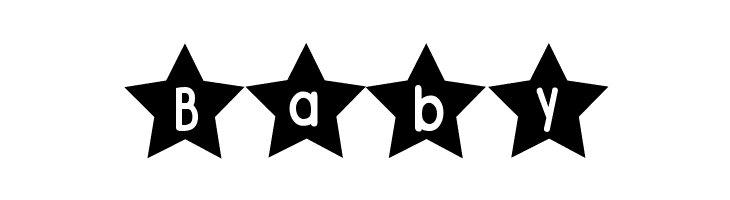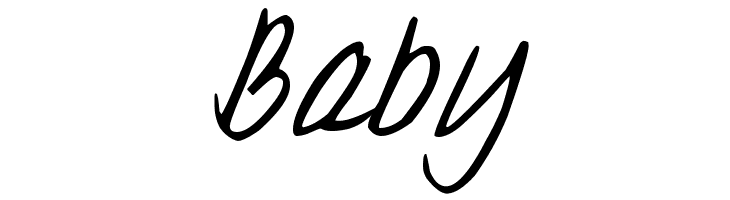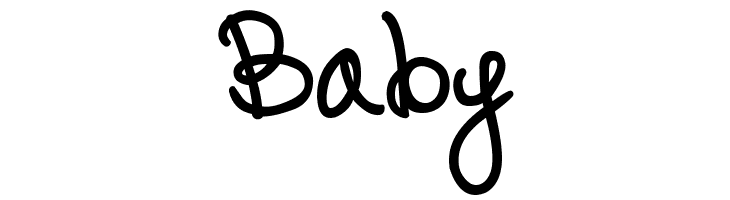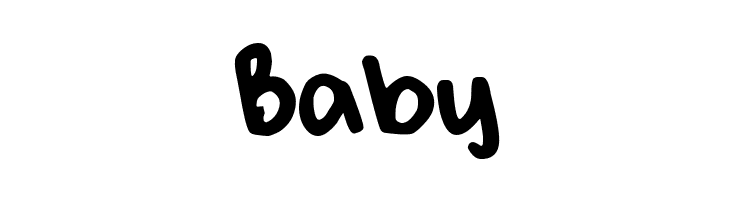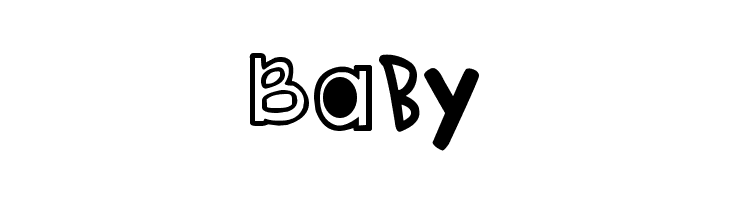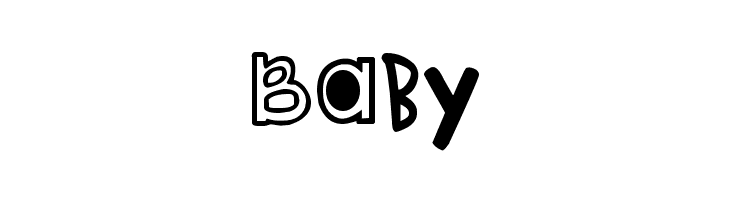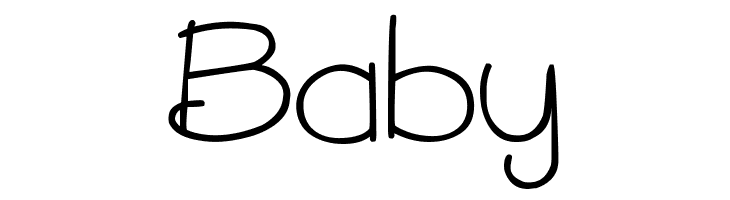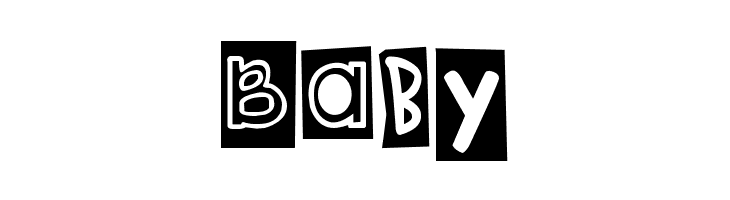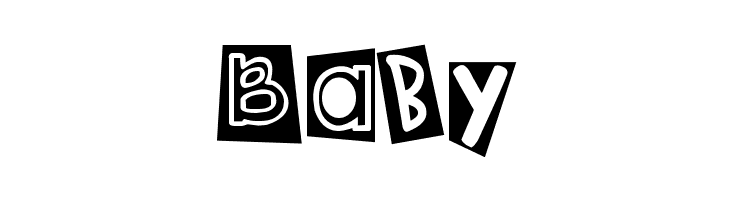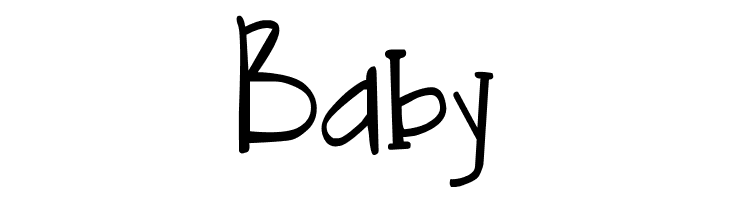
A playful, bold font with rounded, thick strokes and a whimsical touch.
A playful font with characters enclosed in bold circular dots, offering a whimsical and creative style.
A playful font styled like letter tiles from a word game, featuring bold characters within bordered squares.
A playful, tile-based font inspired by classic word games.
A playful, game-inspired font with characters on square tiles.
A playful font with characters enclosed in pumpkin shapes, perfect for seasonal themes.
A playful, pumpkin-themed decorative font ideal for festive designs.
A playful, bold handwritten font with a casual and creative vibe.
A bold, playful handwritten font with a casual and dynamic style.
An elegant and decorative font with intricate swirls and loops.
A clean, modern font with rounded edges and uniform stroke width.
A playful handwritten font with a whimsical and informal style.
A playful, hand-drawn font with a whimsical and friendly style.
A playful, hand-drawn font with tall, narrow letters and whimsical strokes.
A playful handwritten font with smooth, rounded letterforms and a whimsical style.
A playful, bold font with characters enclosed in black circles, offering a unique and decorative style.
A festive, ornament-themed font with bold, enclosed characters.
A decorative font with characters inside circular ornaments, ideal for festive designs.
A playful, circular-bordered font with bold, rounded characters.
A playful, eclectic font with a ransom note style, featuring diverse and decorative characters.
A playful, eclectic font mimicking cut-out letters, ideal for quirky designs.
A playful, eclectic font resembling a collage of magazine clippings.
A playful, eclectic font with a mix of bold, outlined, and decorative characters.
A playful, handwritten font with tall, narrow letters and a casual appearance.
A bold, handwritten font with a playful and whimsical style.
A decorative font with characters inside bold star shapes.